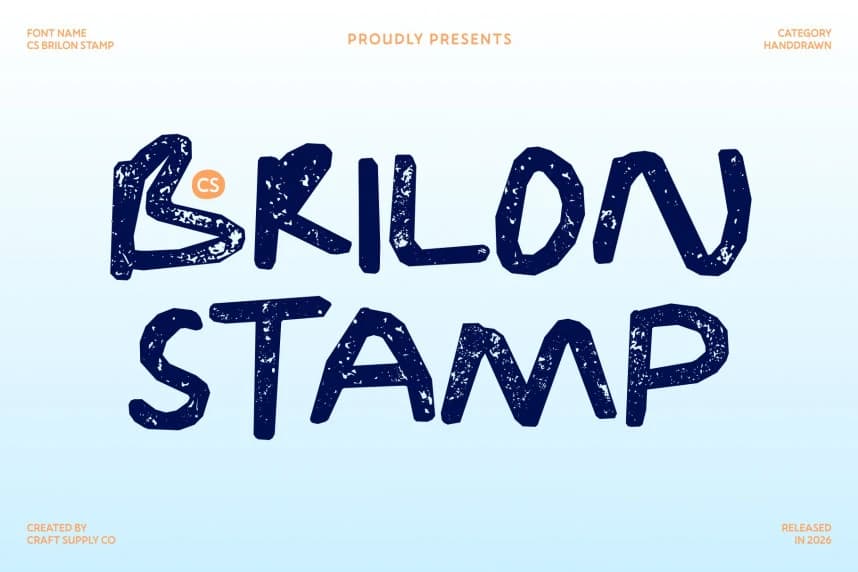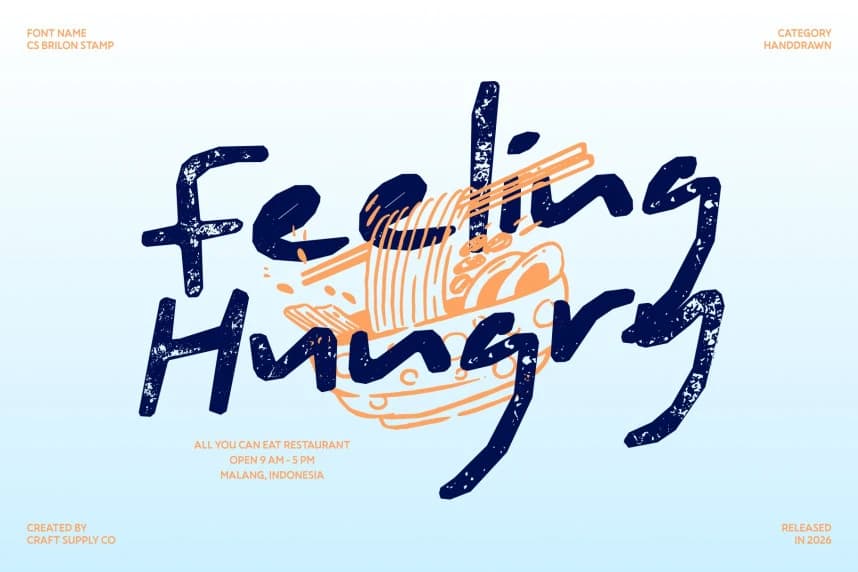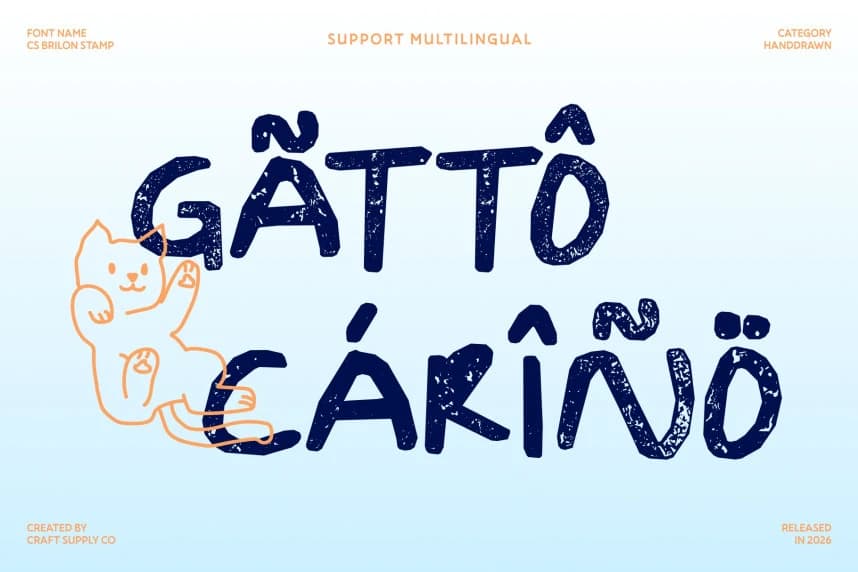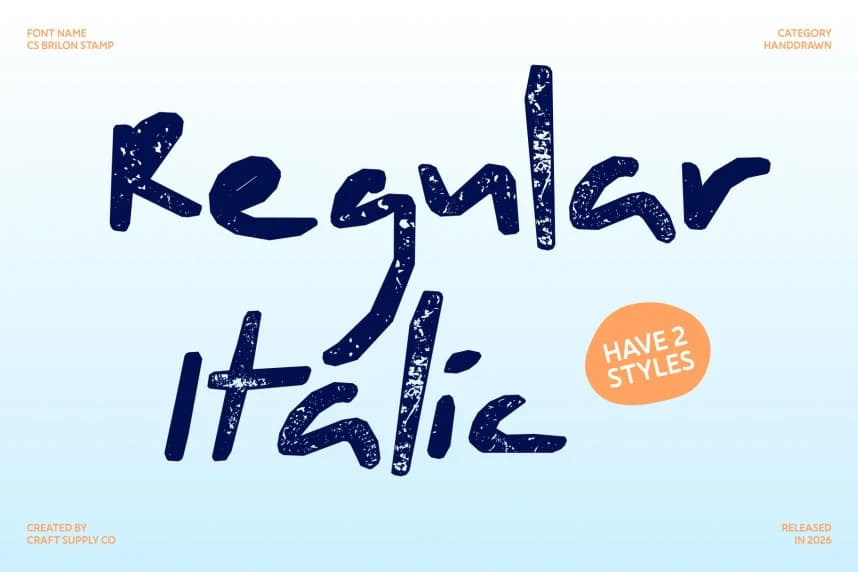
CS Brilon Stamp Font
CS Brilon Stamp Font – Organic Hand-Drawn Expression with Textured Soul Hand-Drawn Display Font with Raw Character. This is a hand-drawn sans serif font created to celebrate artistic freedom and organic expression.